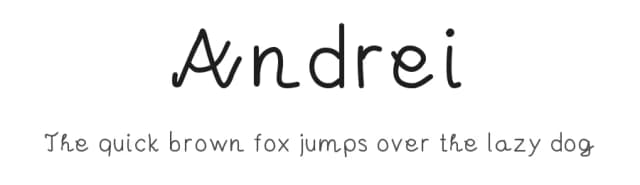
About GaGoo Font
GaGoo font is an experimental script type made out of lines and bubbles with a naive and childish look.
This playful font can be used to create really cute designs.
| Designer | Andrei Olaru |
GaGoo Font